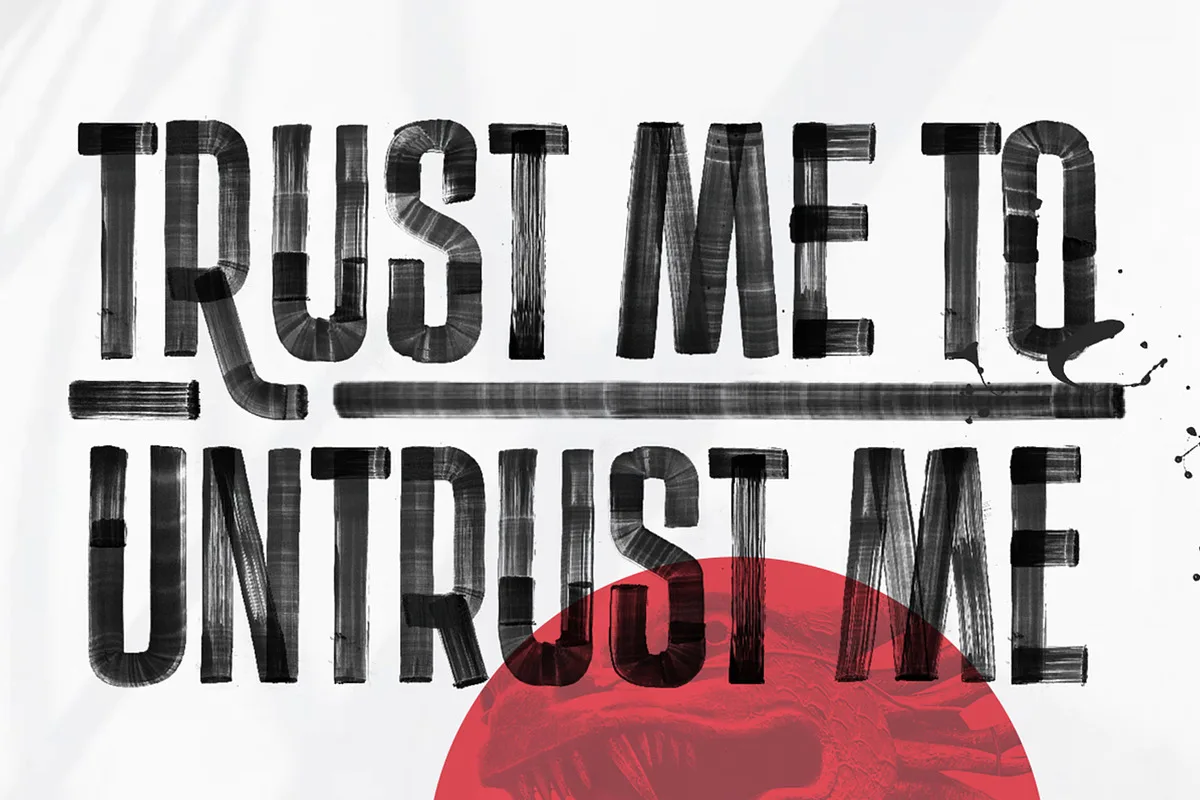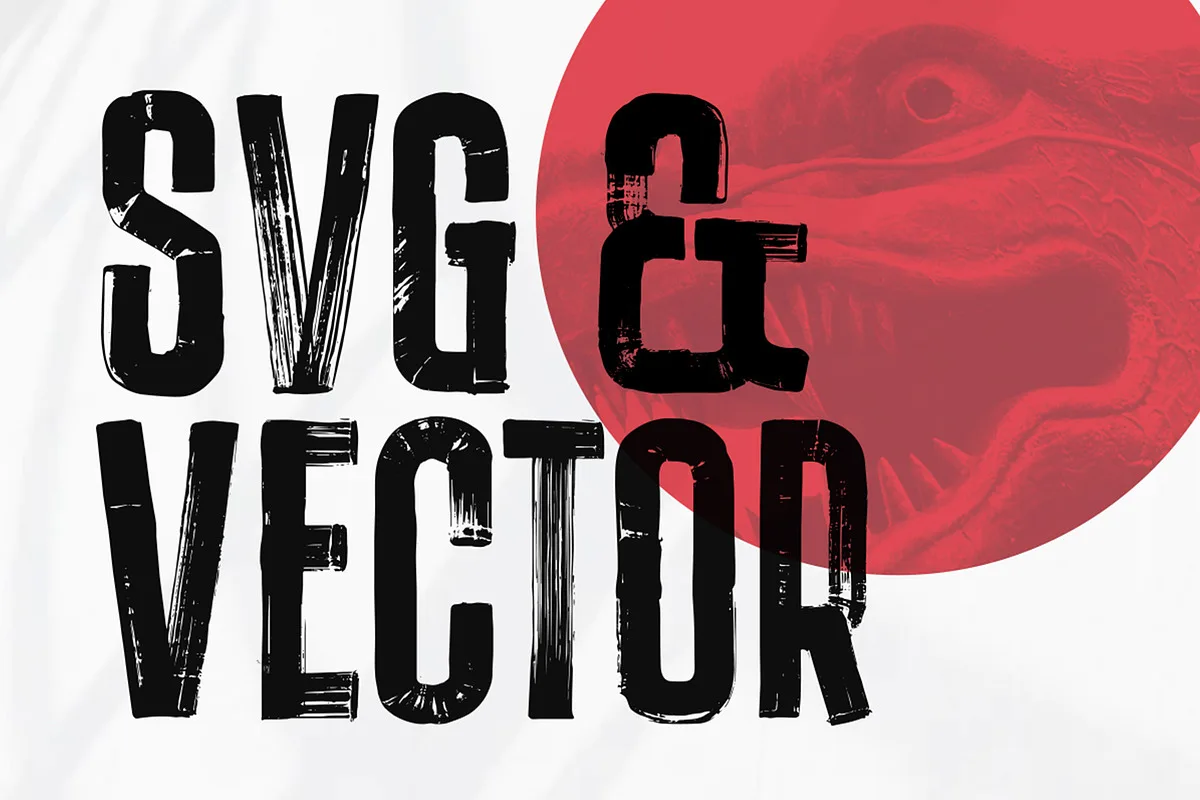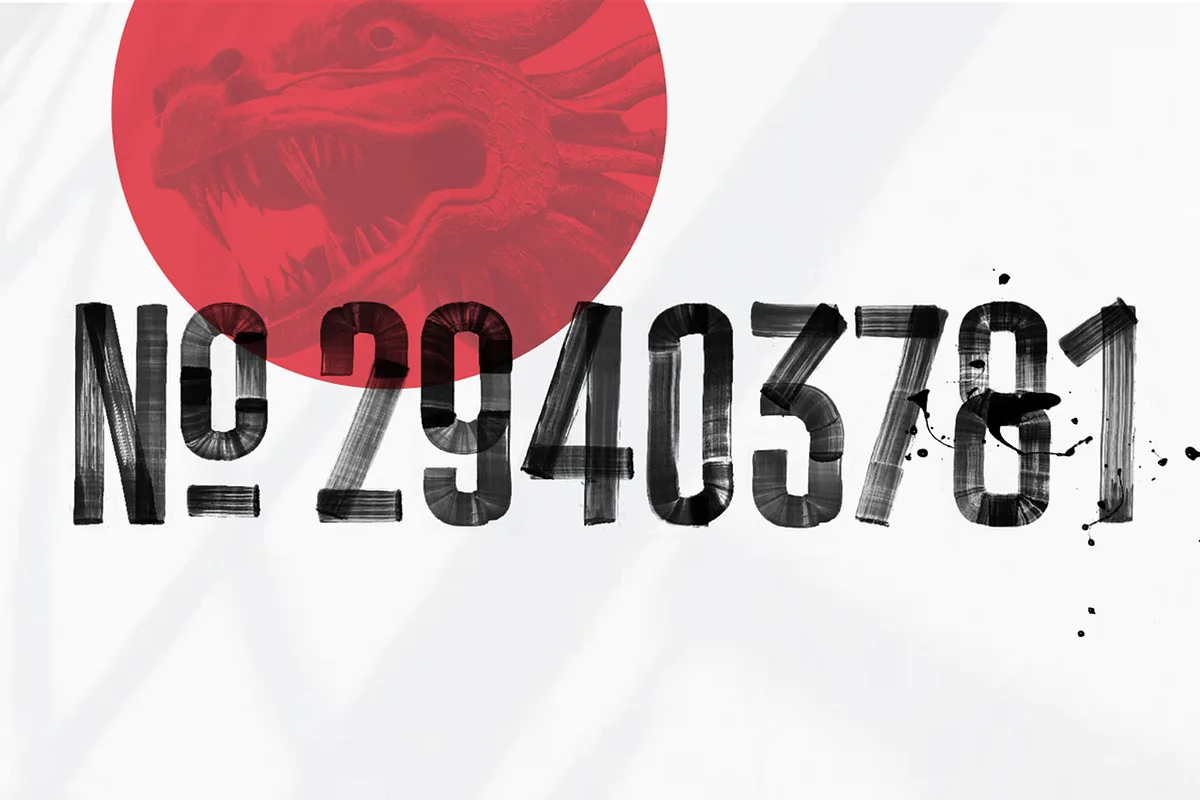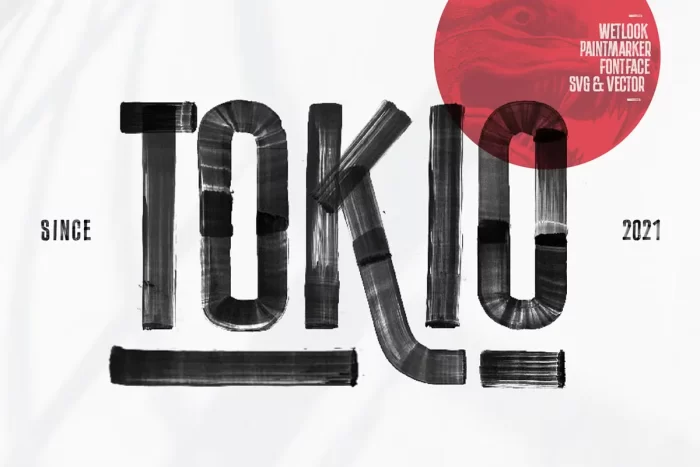
Tokio marker mimics a paint marker written on a glossy surface. It comes in a vector and a SVG version. The lowercase letters are alternate glyphs of the uppercases. Please notice that the spacing of the SVG Version is shown very badly on this Website. It’s actually very good!